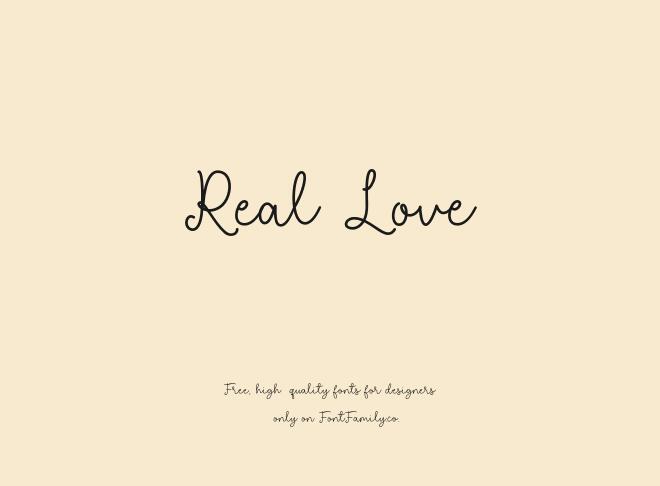
Real Love Font
Real Love Font is a captivating handwritten script font that exudes romance and charm. Its delicate, flowing characters and dainty embellishments make it perfect for wedding invitations, greeting cards, and other design projects that require a touch of elegance and personalisation. Real Love Font stands out from other script fonts with its unique blend of sophistication and informality, making it a versatile choice for a wide range of design projects. Its delicate curves and intricate details evoke feelings of romance, making it an excellent choice for projects that require a touch of love and warmth. This free-to-use font is a must-have for designers looking to add a touch of elegance and romance to their work.